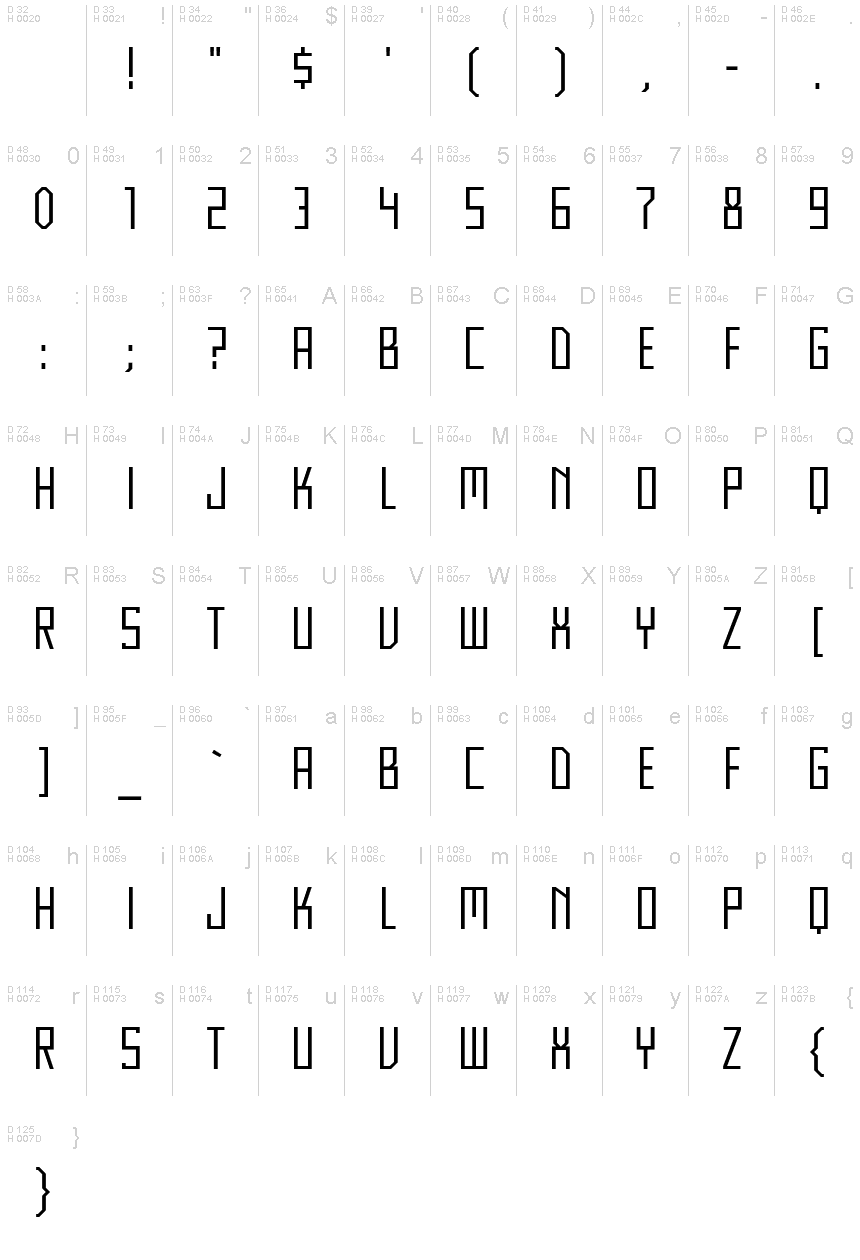
HFF Ultrasound
HFF Ultrasound font is a condensed techno font designed by Have Fun with Fonts.
Based on the lettering on an image submitted to the font ID forum here at Dafont. The poster kept on requesting and reposting ID requests for letterings related to Italian ultras and I thought I might grant one of his wishes, especially that Christmas is just around the corner. :) Enjoy 13.12.2021